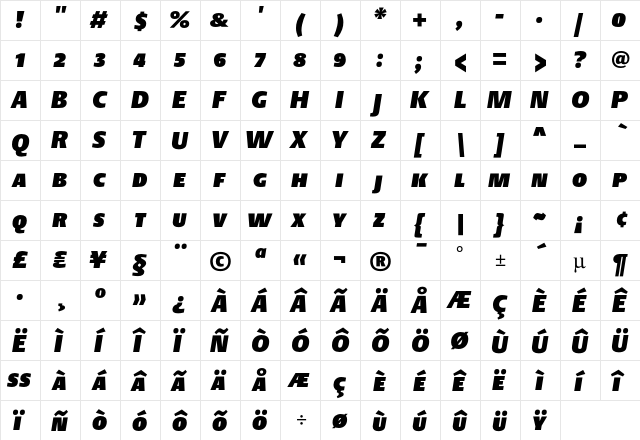
DTLArgoTCaps UltraHeavyItalic
Design Context for DTLArgoTCaps Typeface
DTLArgoTCaps takes a measured approach to typography — its balanced proportions and neutral character make it a reliable workhorse for both digital and print work. The slanted form adds forward momentum and visual energy.
Pro Tip: Try DTLArgoTCaps for annotation and caption copy alongside an upright companion — the contrast in angle creates a dynamic but ordered typographic system.